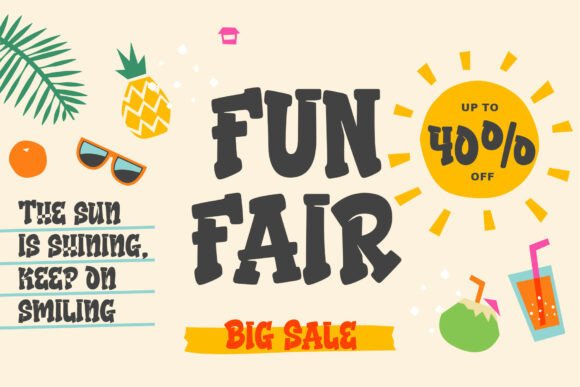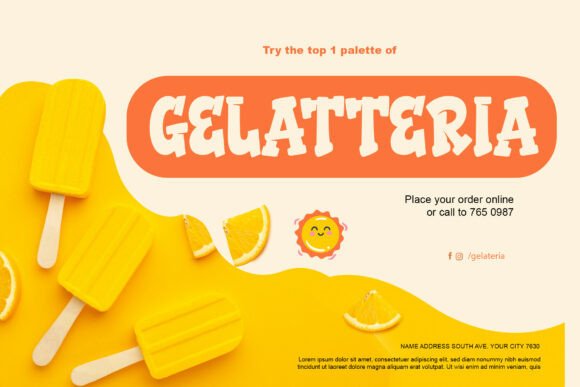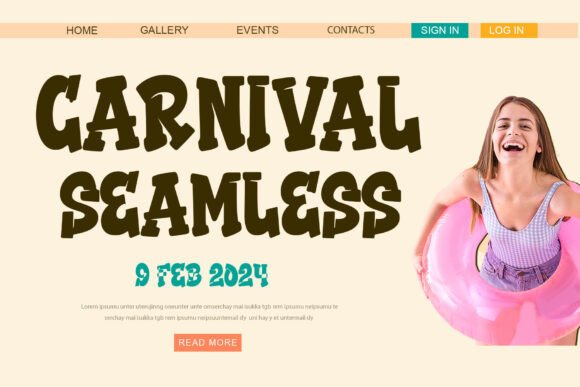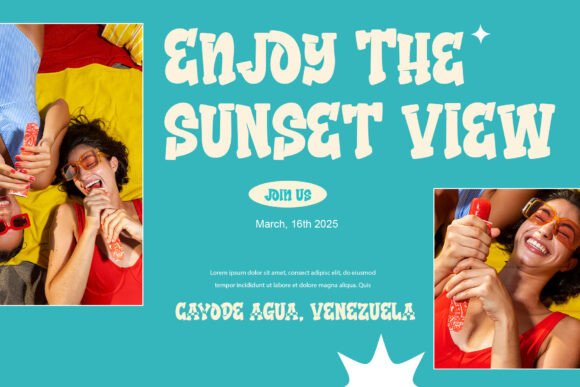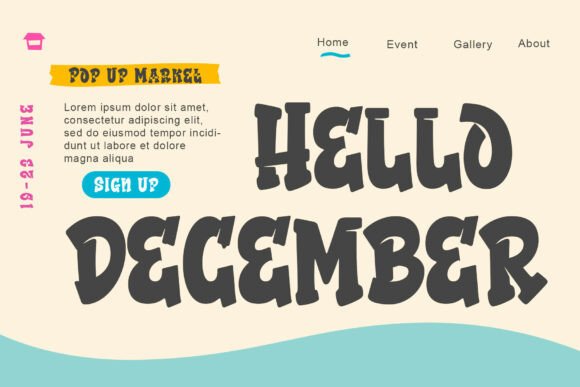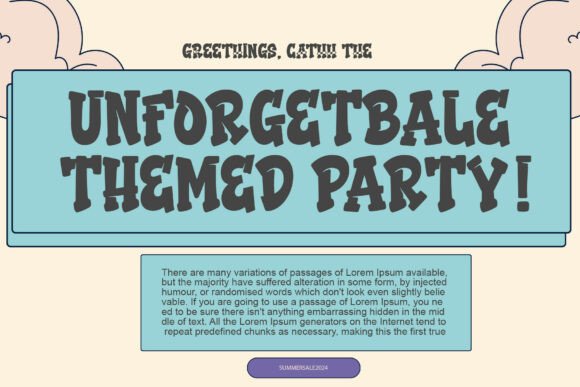
Crow Zero Font: Unleash Your Creativity with this Bold and Dynamic Typeface
Are you looking for a font that can add a touch of energy and creativity to your design projects? Look no further than Crow Zero Font, a bold and dynamic decorative display font that’s perfect for a wide range of applications. In this article, we’ll take a closer look at the features and benefits of Crow Zero Font, and explore how it can elevate your designs to the next level.
A Bold and Playful Typeface
Crow Zero Font is a bold and dynamic decorative display font that radiates energy and creativity. Its thick, chunky letterforms have a slightly irregular, hand-drawn feel, giving it a playful and organic character that’s sure to grab attention. The design incorporates soft curves blended with sharp, expressive edges, making it stand out as a modern and friendly typeface.
Whether you’re designing a logo, branding materials, or advertising campaigns, Crow Zero Font is the perfect choice. Its bold and playful personality makes it ideal for projects that require a touch of whimsy and creativity. Plus, its versatility ensures that it can be used in a wide range of contexts, from book and magazine titles to blog headers and social media graphics.
Key Features of Crow Zero Font
Crow Zero Font comes with a range of features that make it a valuable addition to any designer’s toolkit. Some of its key features include:
- Uppercase and Lowercase Letters: Crow Zero Font includes both uppercase and lowercase letters, giving you the flexibility to create a wide range of designs.
- Numerals: The font also includes numerals, making it perfect for designs that require numbers, such as book titles, headings, and advertising campaigns.
- Functional and Stylistic Alternates: Crow Zero Font includes functional and stylistic alternates, allowing you to add variety and interest to your designs.
Crow Zero Font is perfect for a wide range of projects, including:
- Books and Magazines: Use Crow Zero Font to create eye-catching titles and headings for your book or magazine.
- Logo and Branding: Crow Zero Font is perfect for creating bold and memorable logos and branding materials.
- Photography: Use Crow Zero Font to add a touch of personality to your photography projects, such as captions and headings.
- Quotes and Blog Headers: Crow Zero Font is perfect for creating eye-catching quotes and blog headers that grab attention.
- Posters and Advertisements: Use Crow Zero Font to create bold and effective posters and advertisements that stand out.
Why Choose Crow Zero Font?
So why choose Crow Zero Font for your design projects? Here are just a few reasons:
- Unique and Creative Design: Crow Zero Font has a unique and creative design that’s sure to grab attention.
- Versatile: The font is versatile and can be used in a wide range of contexts.
- Easy to Read: Despite its bold and playful personality, Crow Zero Font is easy to read, even at small sizes.
In conclusion, Crow Zero Font is a bold and dynamic decorative display font that’s perfect for designers and crafters looking to add a touch of energy and creativity to their design projects. With its unique and creative design, versatility, and high-quality files, Crow Zero Font is a valuable addition to any designer’s toolkit.